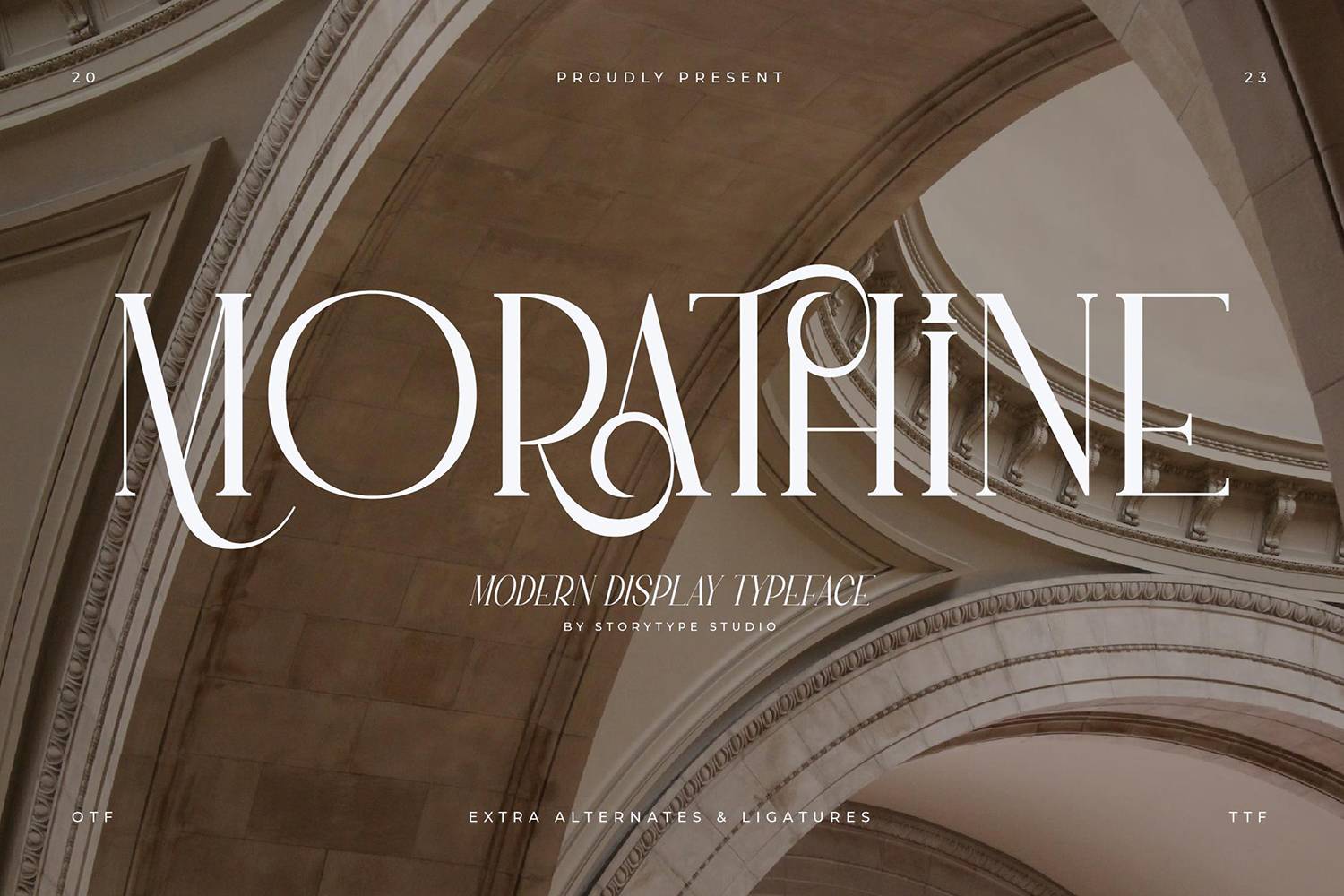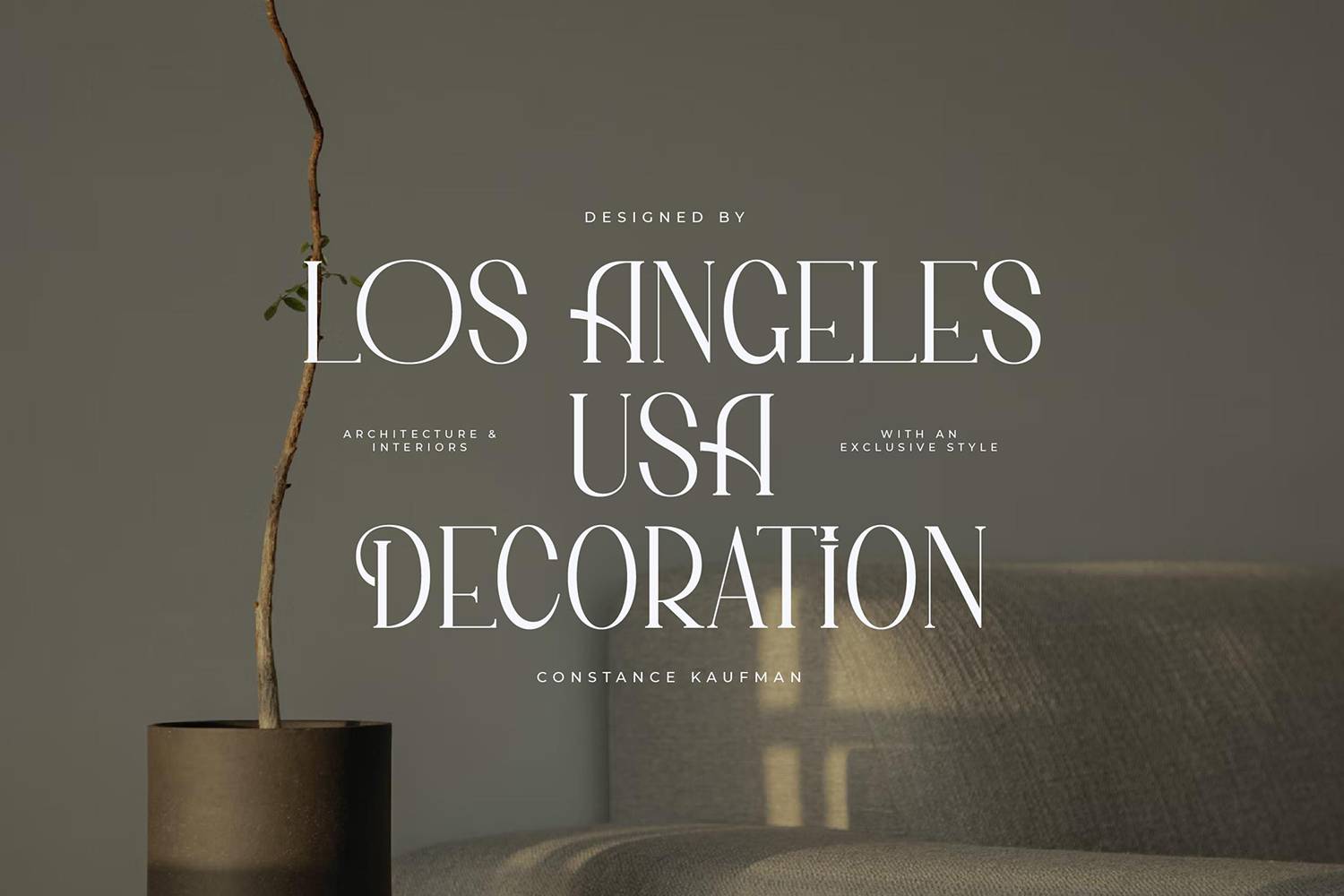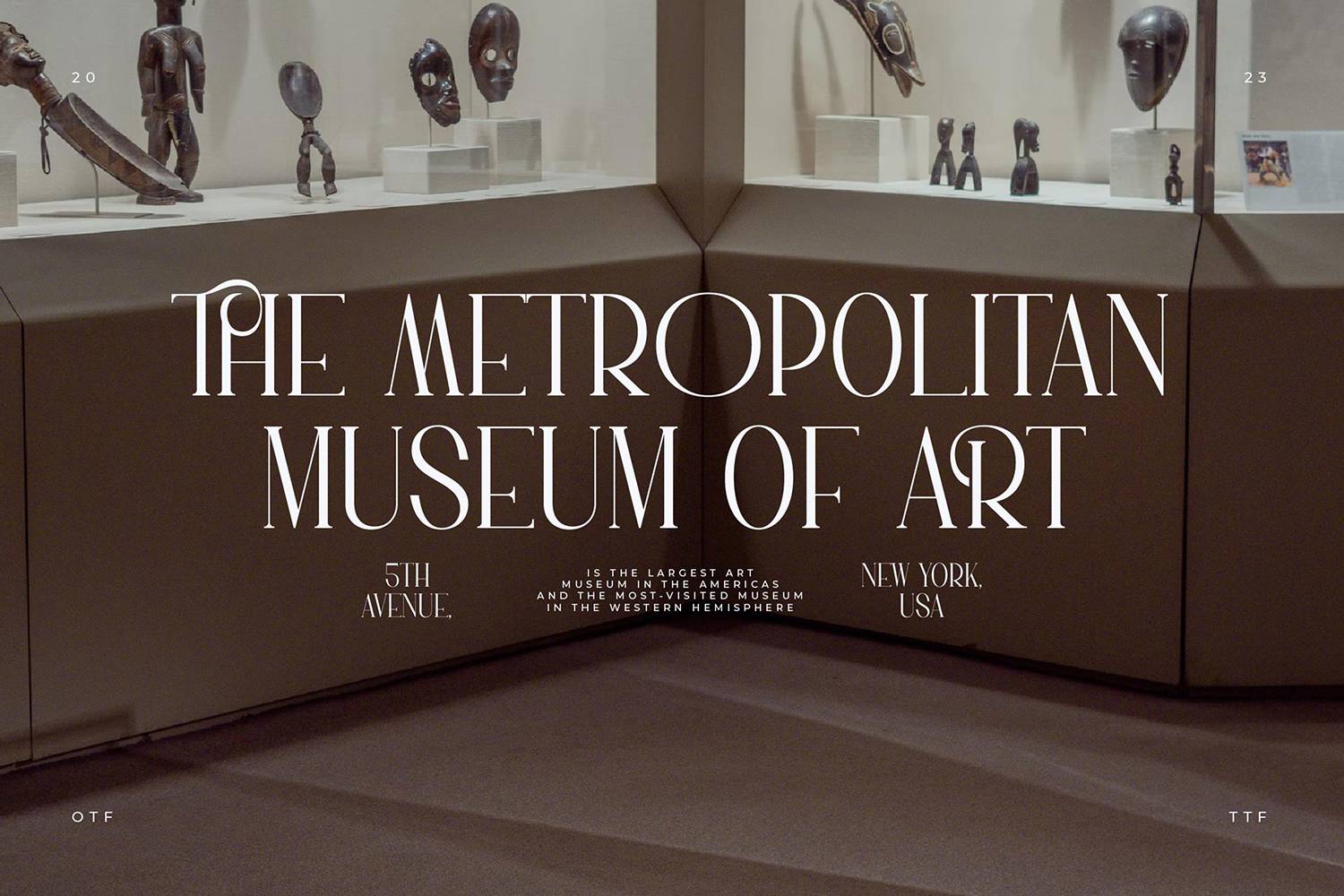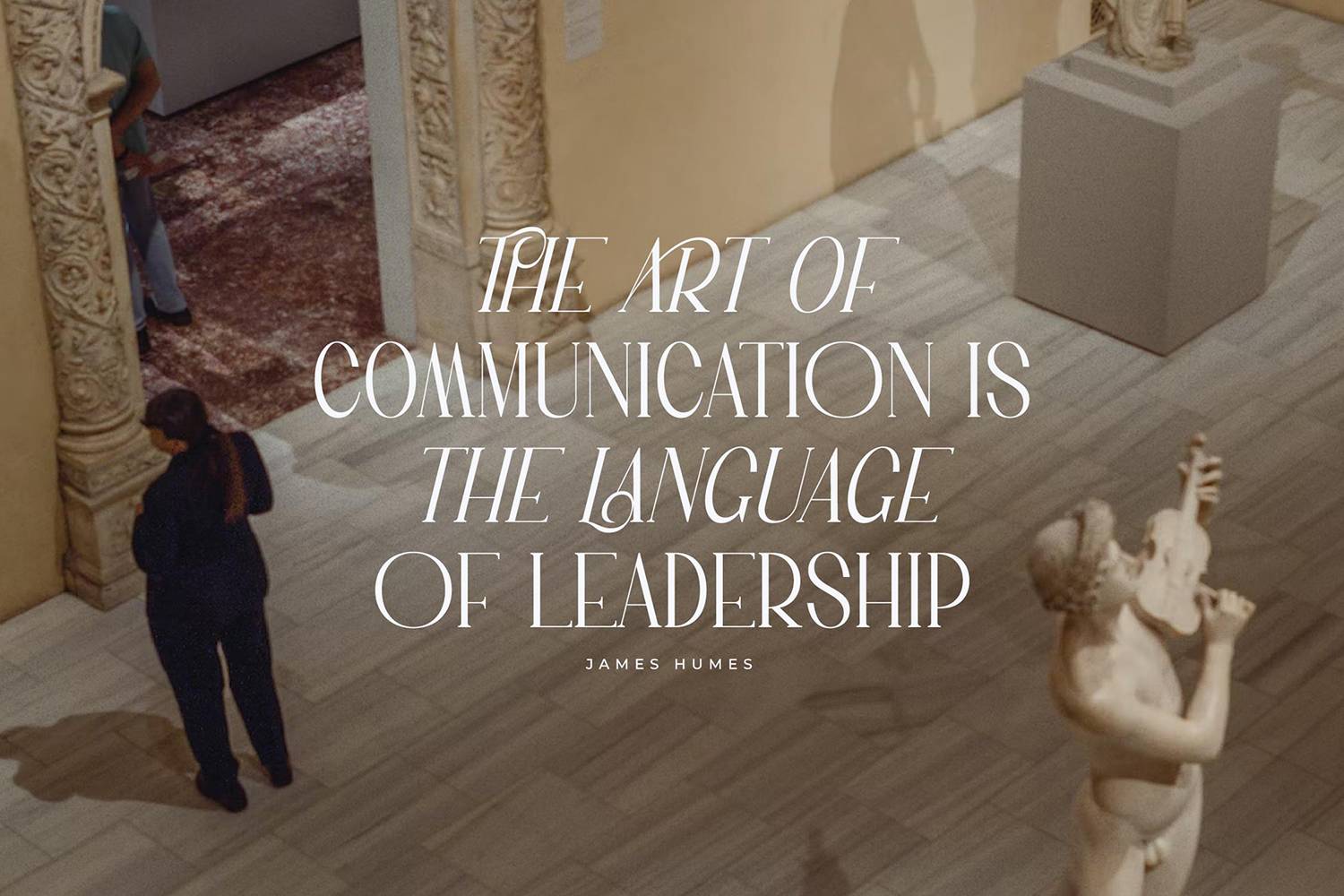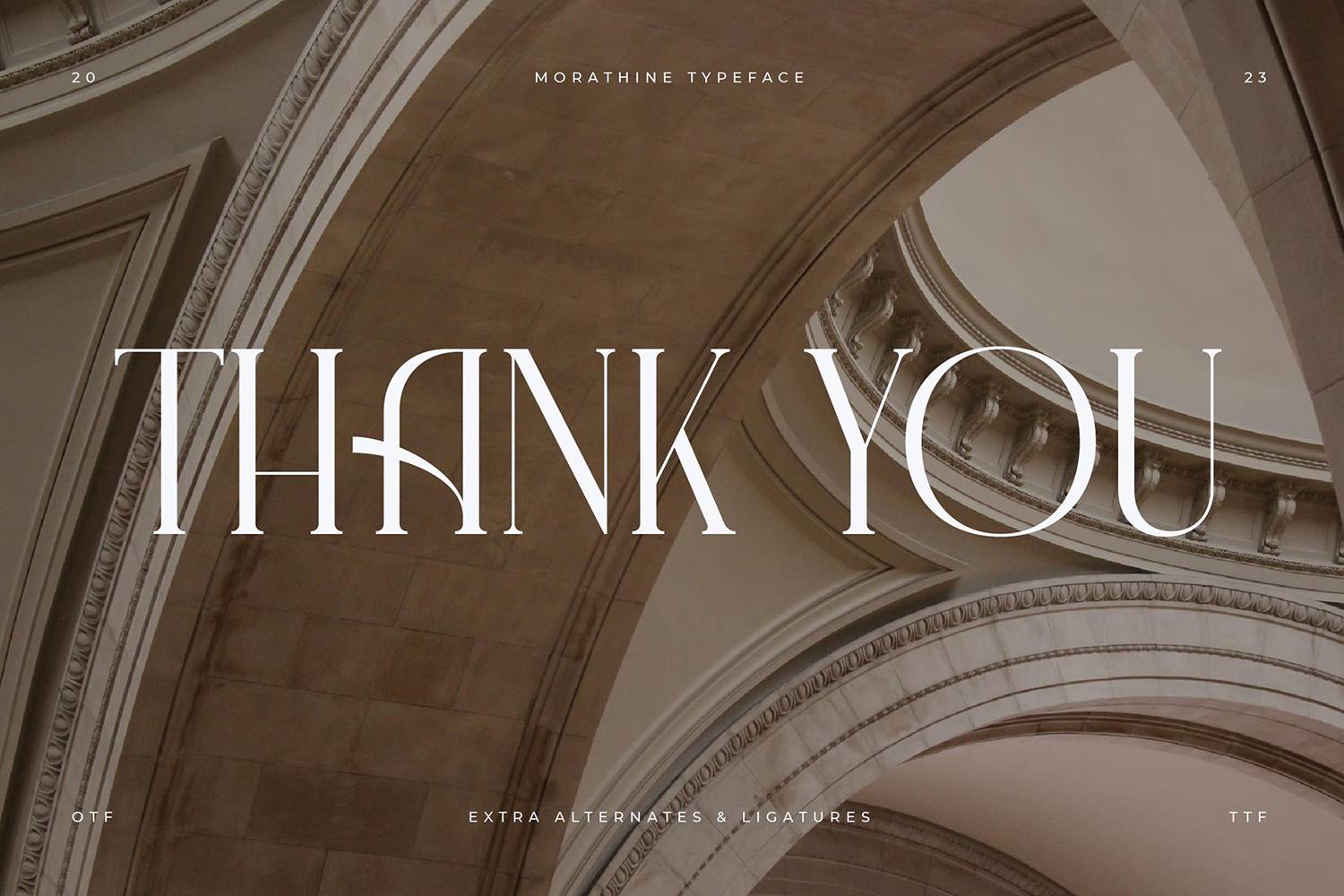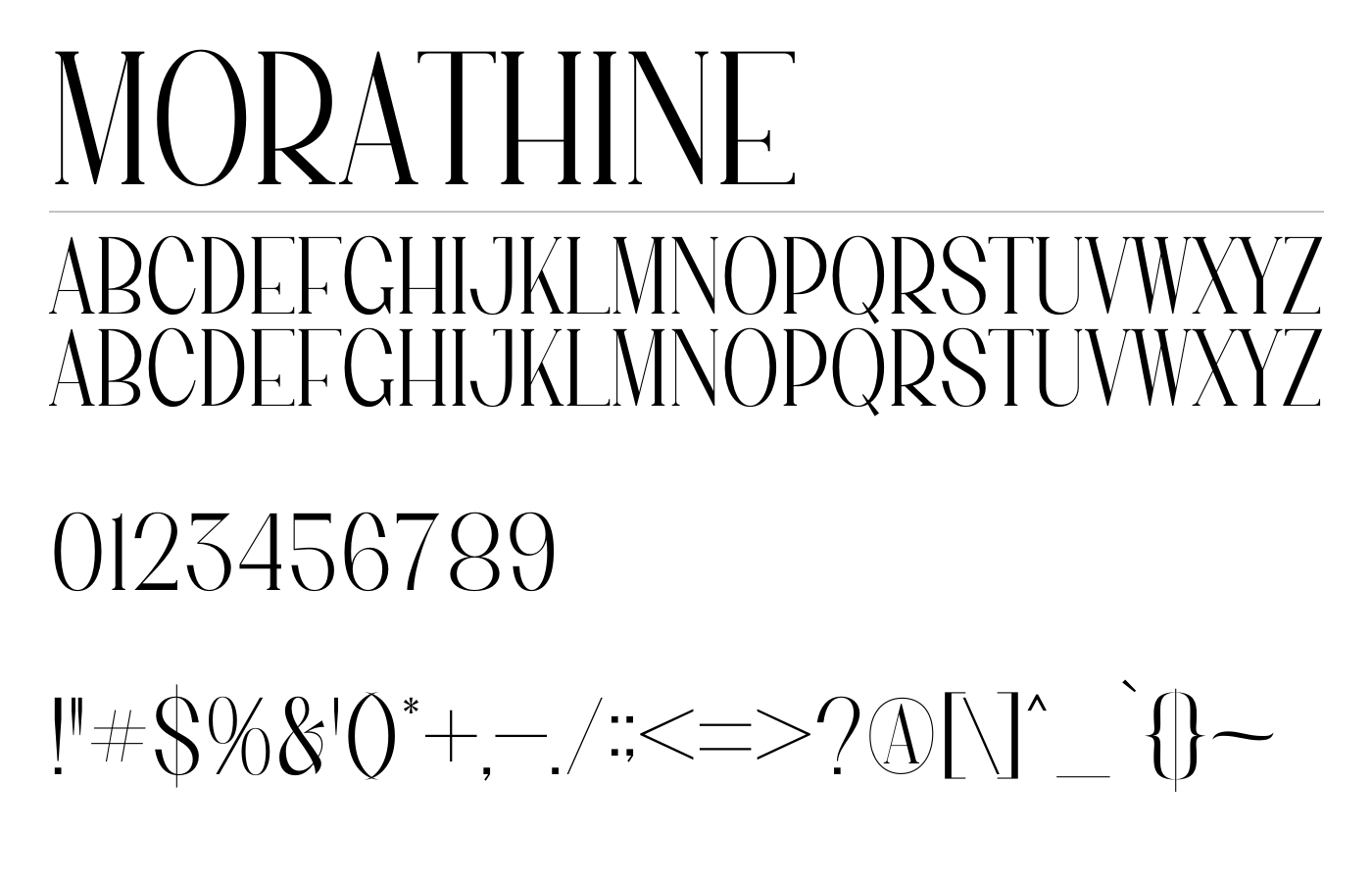
Morathine is a slender serif font with a refined and elegant appearance, characterized by its high contrast between thin and thick strokes and sharply defined serifs. Its tall, narrow letterforms and crisp details convey a sophisticated, modern luxury feel, making it ideal for high-end branding, fashion editorials, and stylish headlines where elegance and readability are key. This font works beautifully in contexts that require a sleek and polished aesthetic, lending a timeless, upscale vibe to any design.
Morathine Font
About Morathine Font